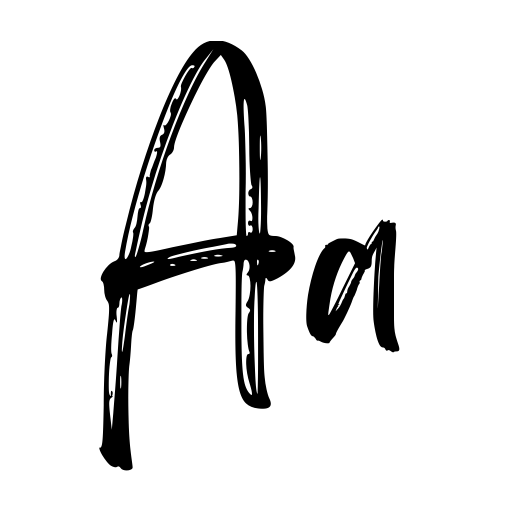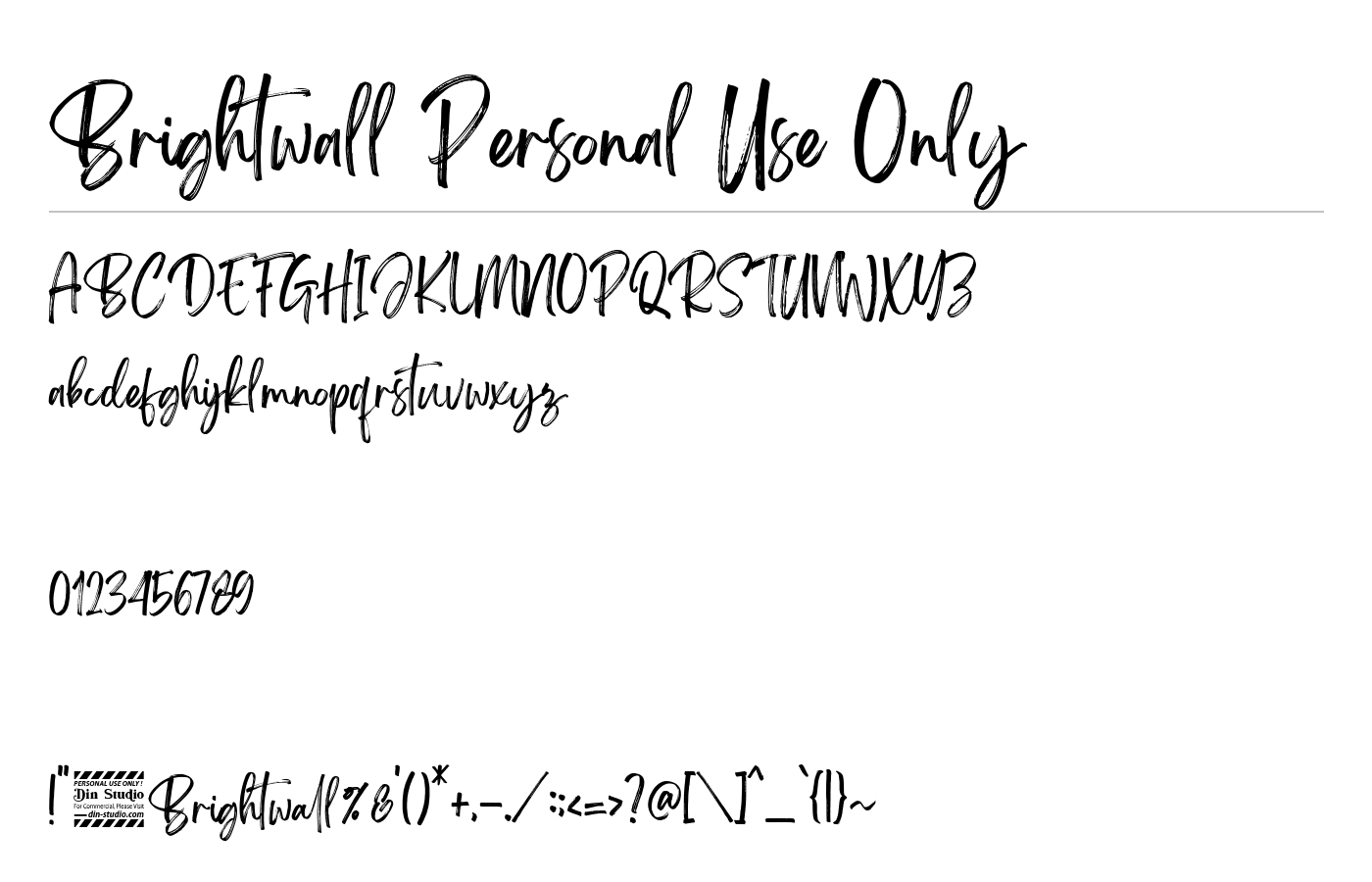
Brightwall Personal Use Only is a lively and modern handwritten script font featuring a textured, brush-like style that adds a dynamic and personal touch to any design. Its tall, narrow letterforms with varied stroke thickness create an energetic yet elegant feel, making it ideal for creative projects, branding, and casual yet sophisticated headlines. This font works beautifully for invitations, logos, and social media graphics where a unique, handcrafted appearance is desired.
Brightwall Personal Use Only Font
About Brightwall Personal Use Only Font